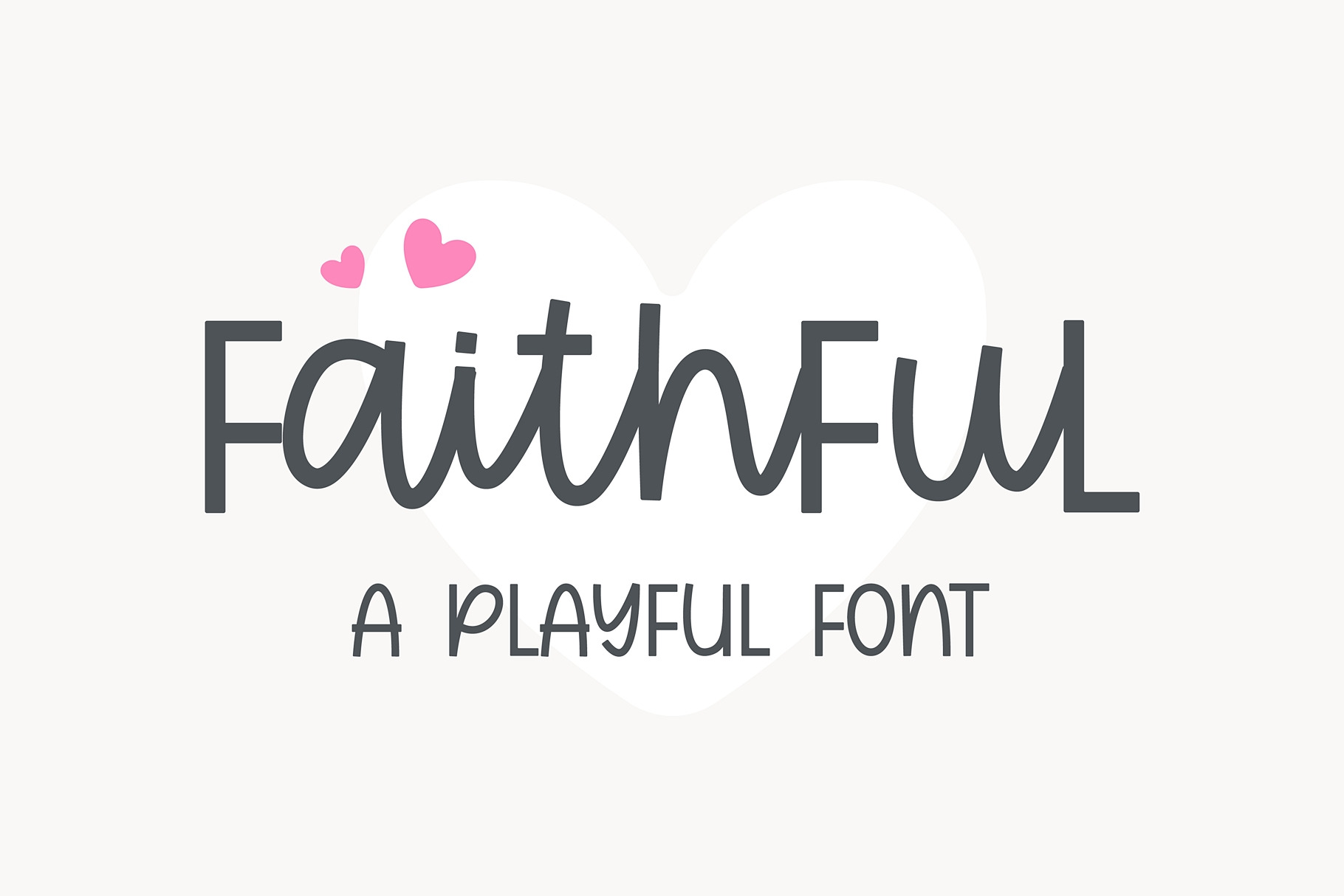
Faithful - A cute handwritten font
Faithful is a cool, friendly, and informal handwritten font that can be used for all chalkboard quotes or teaching material! Its authentic look and feel will add a personal and realistic touch to your designs